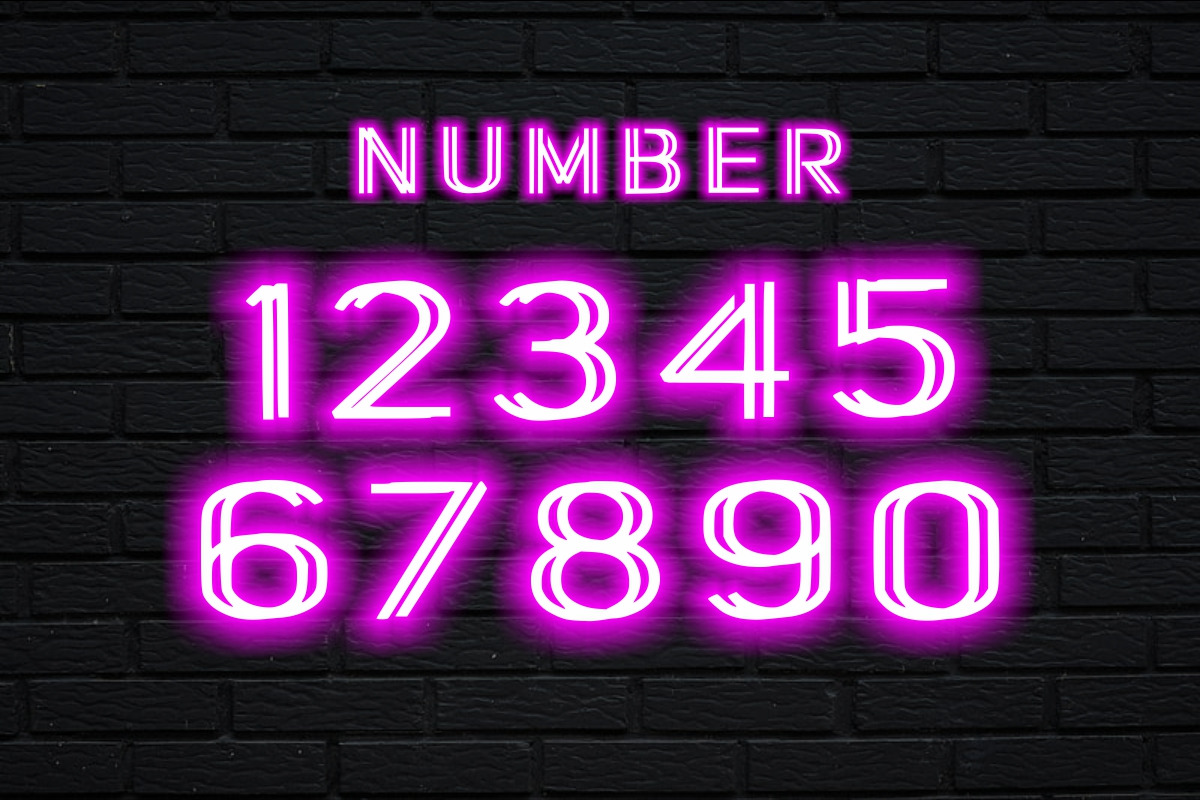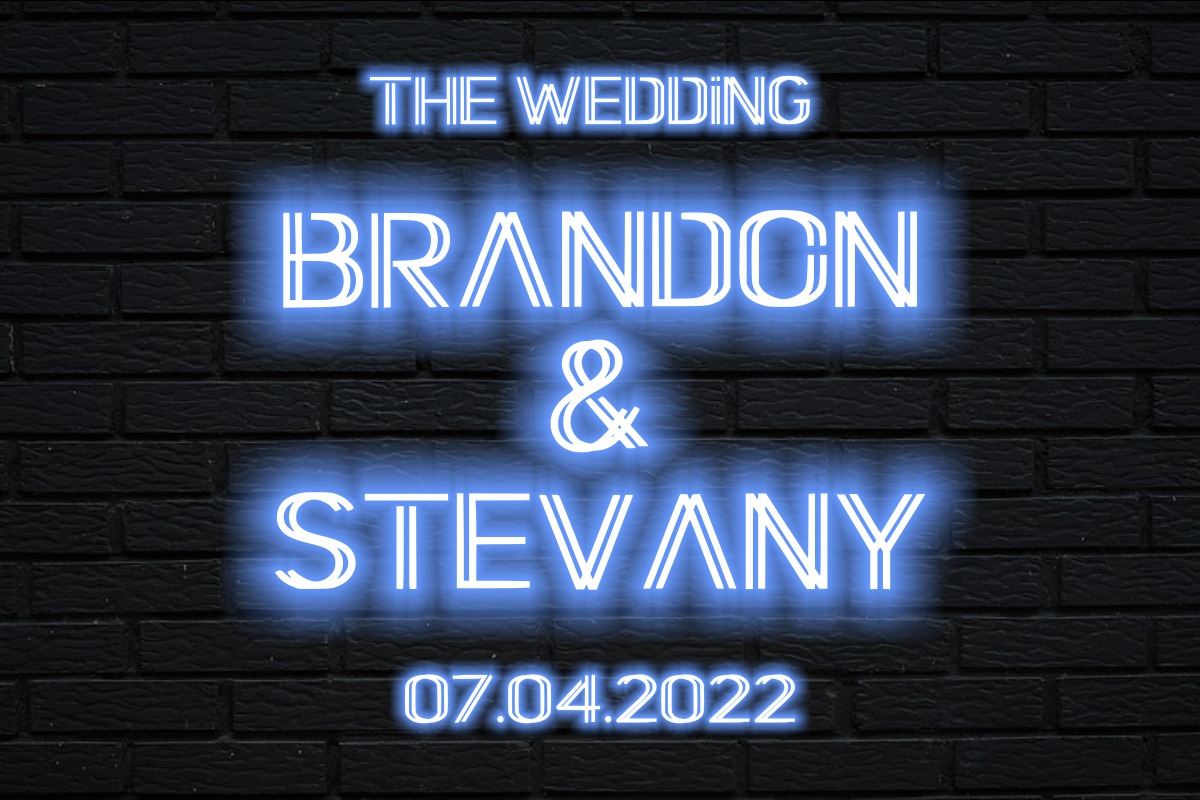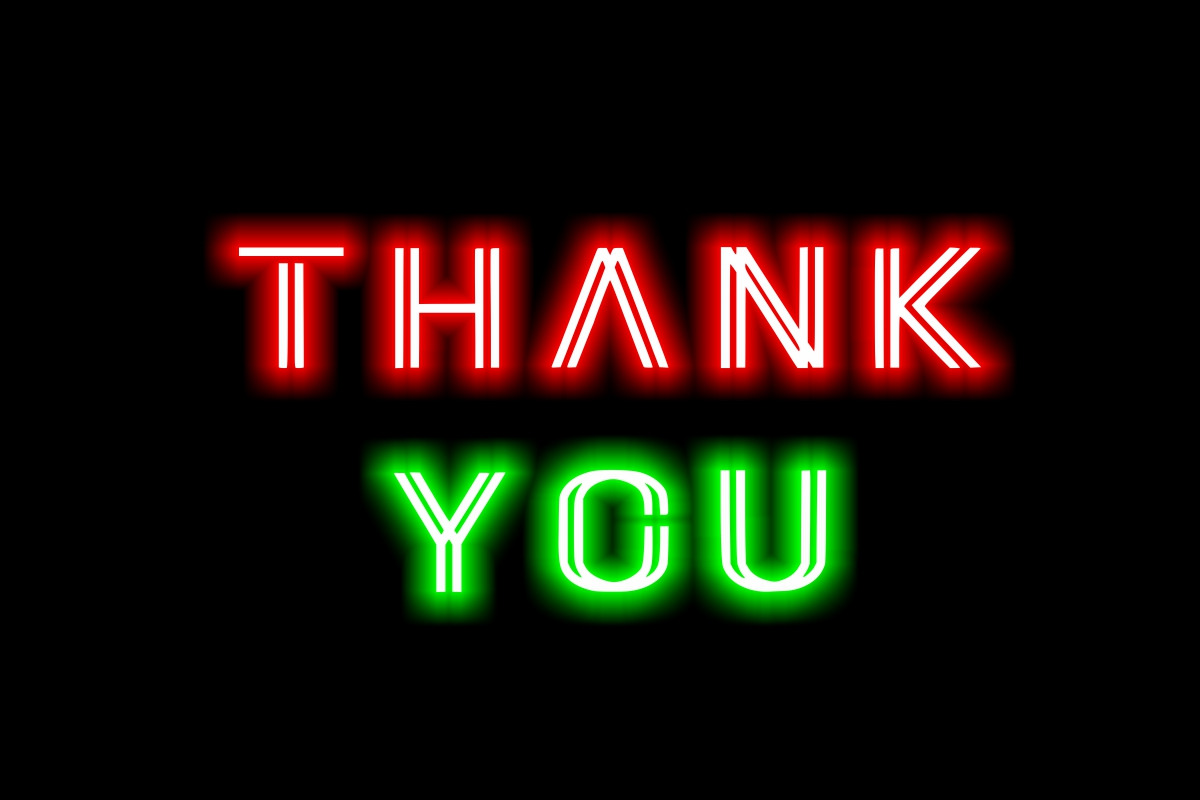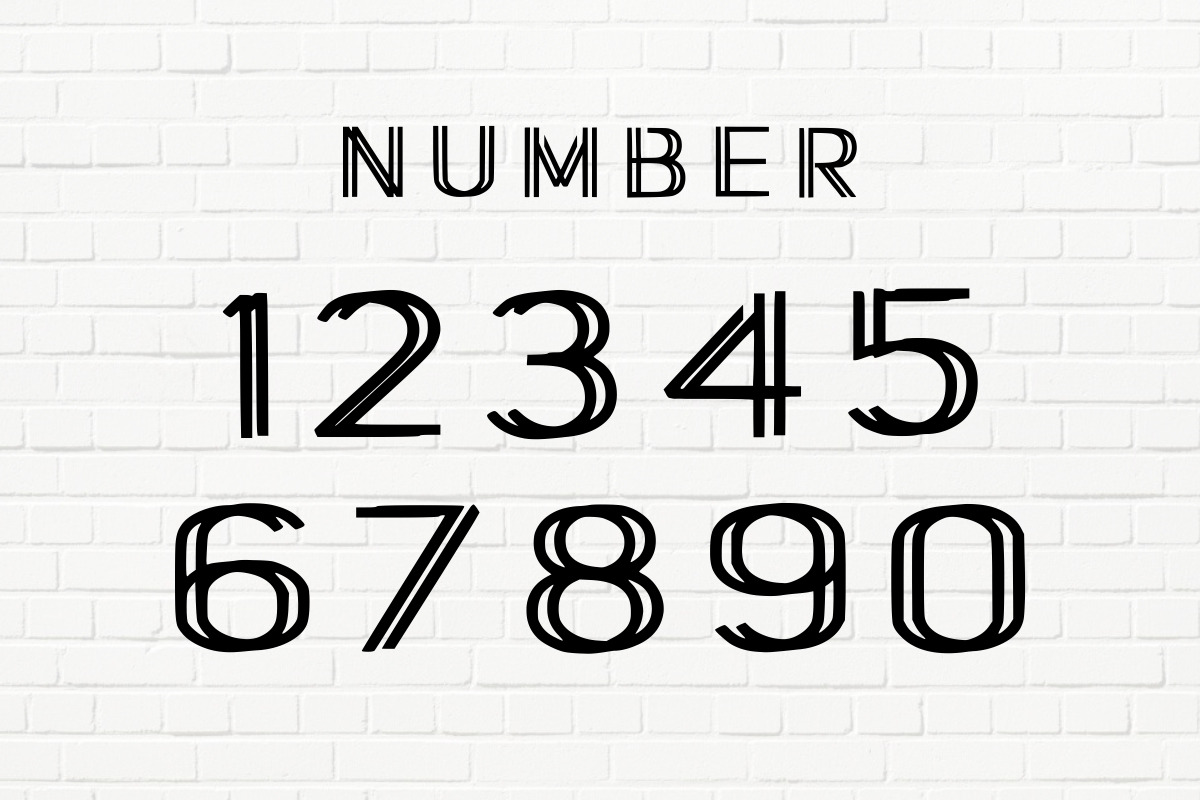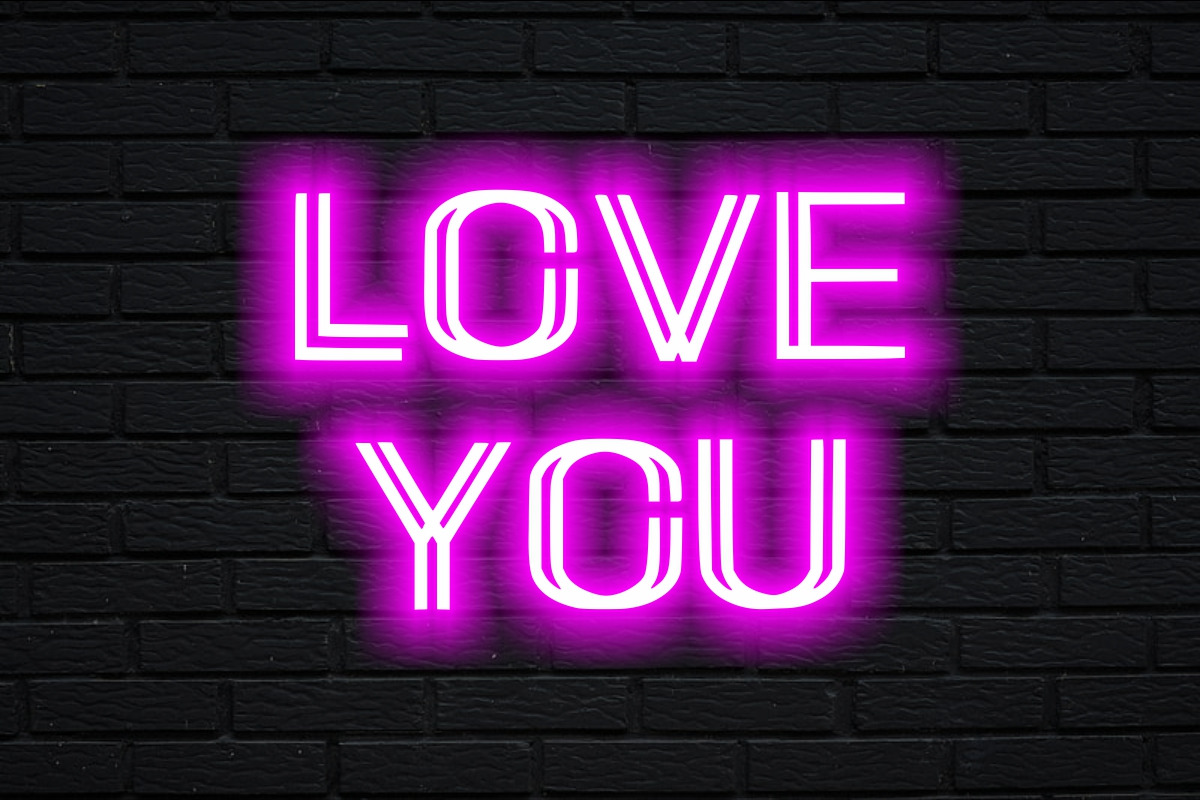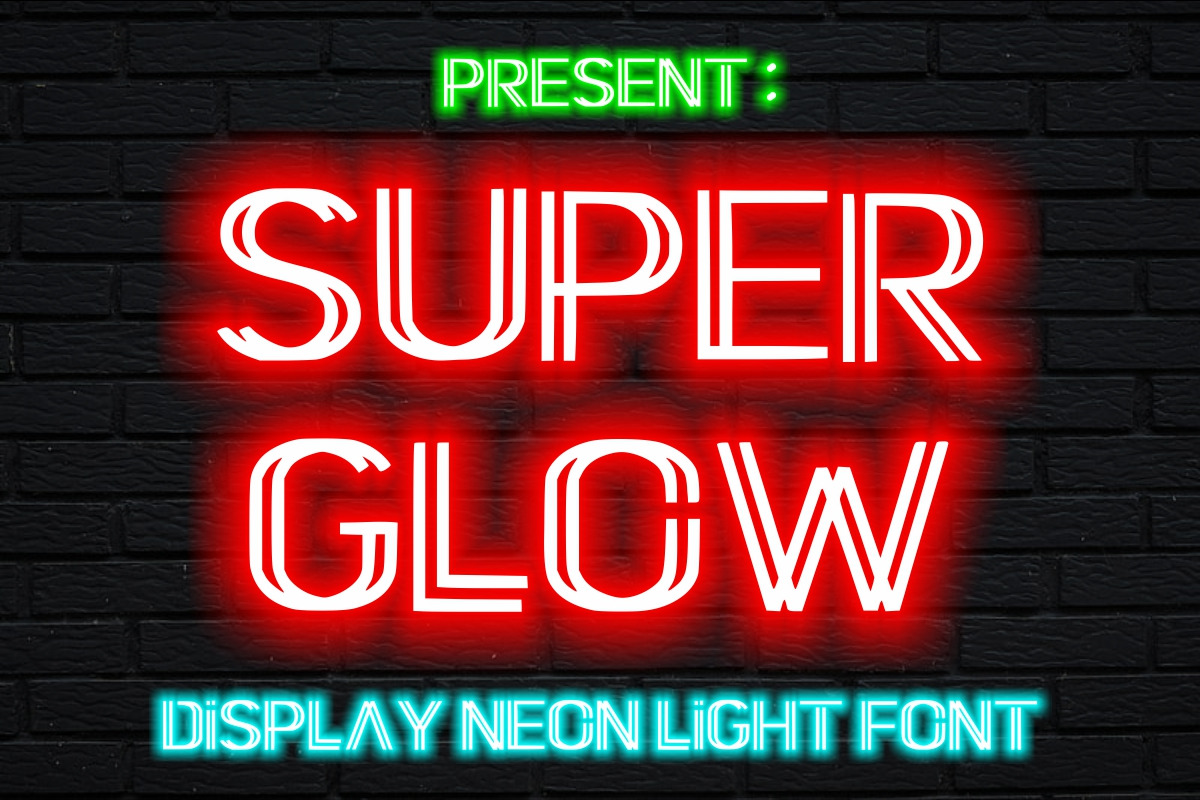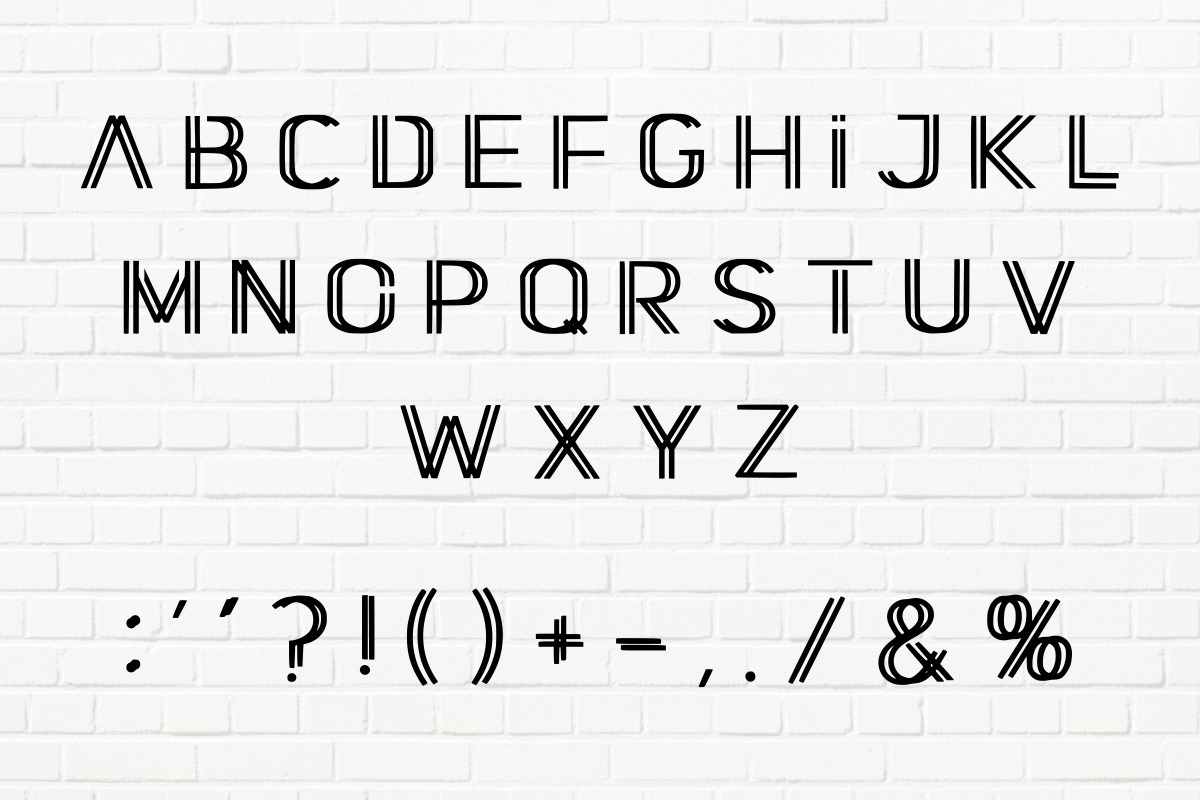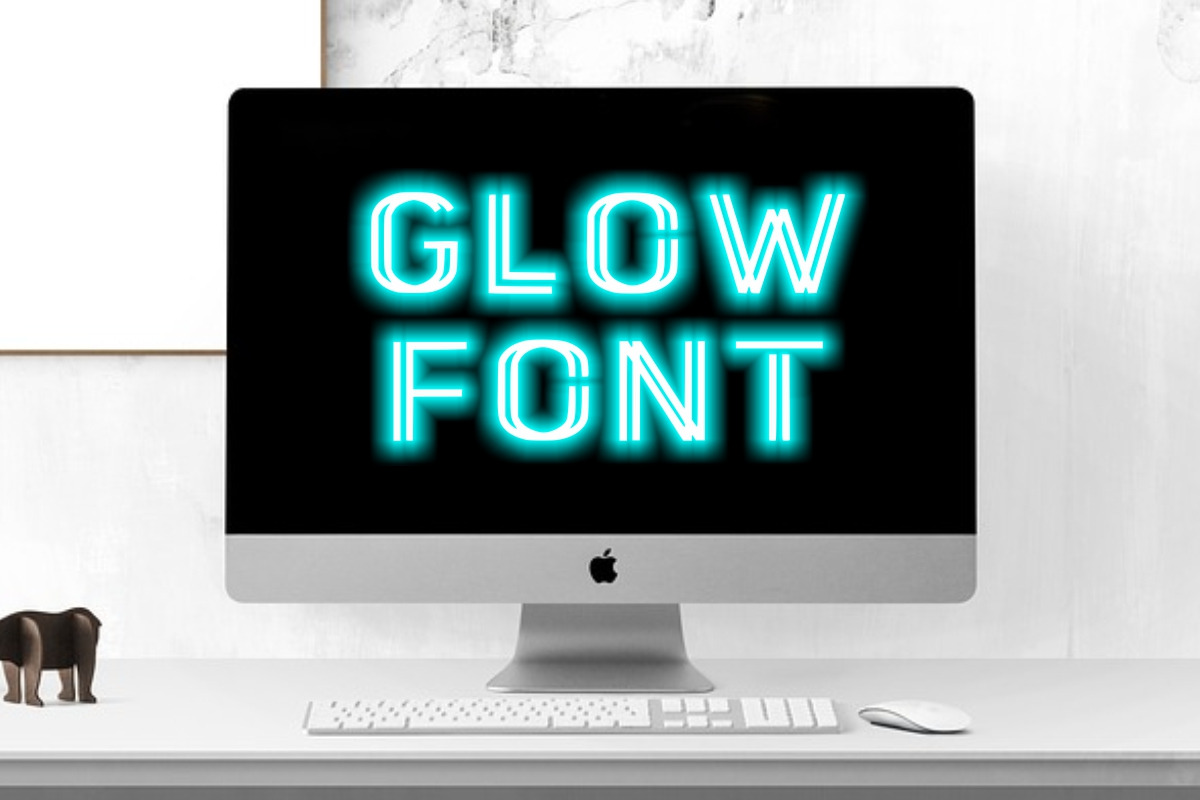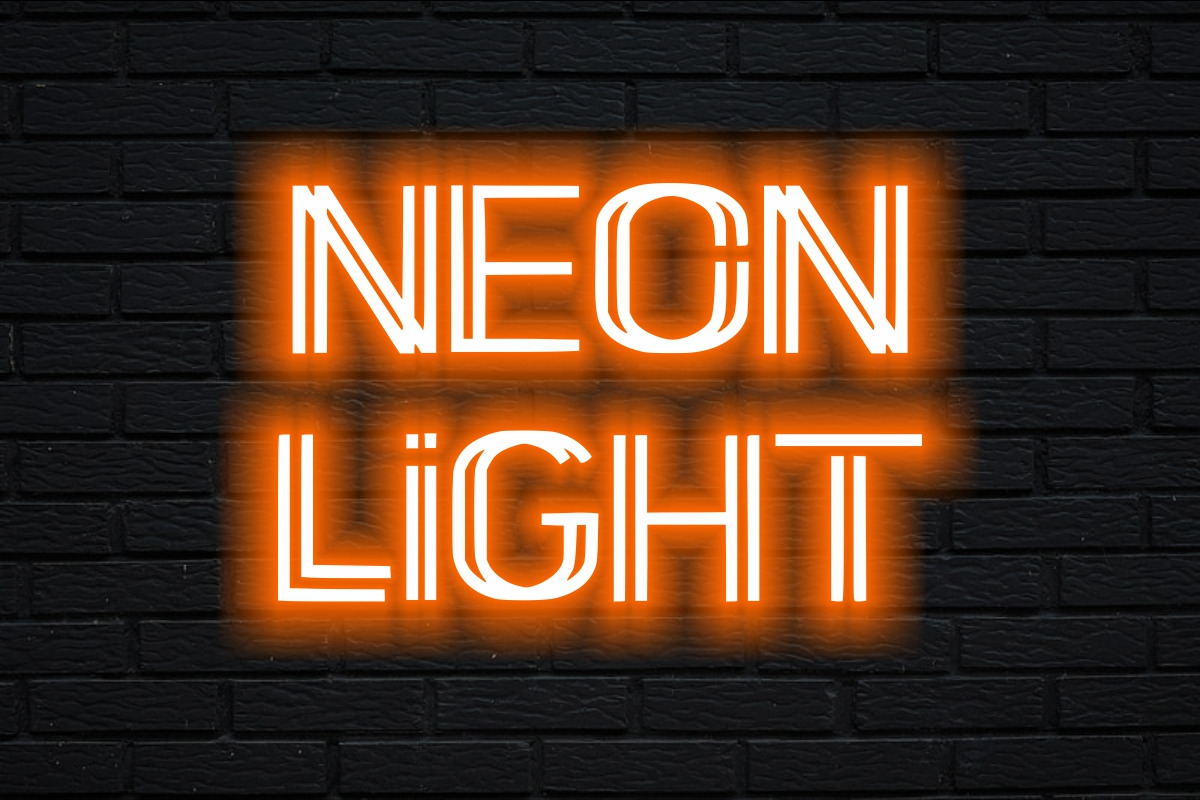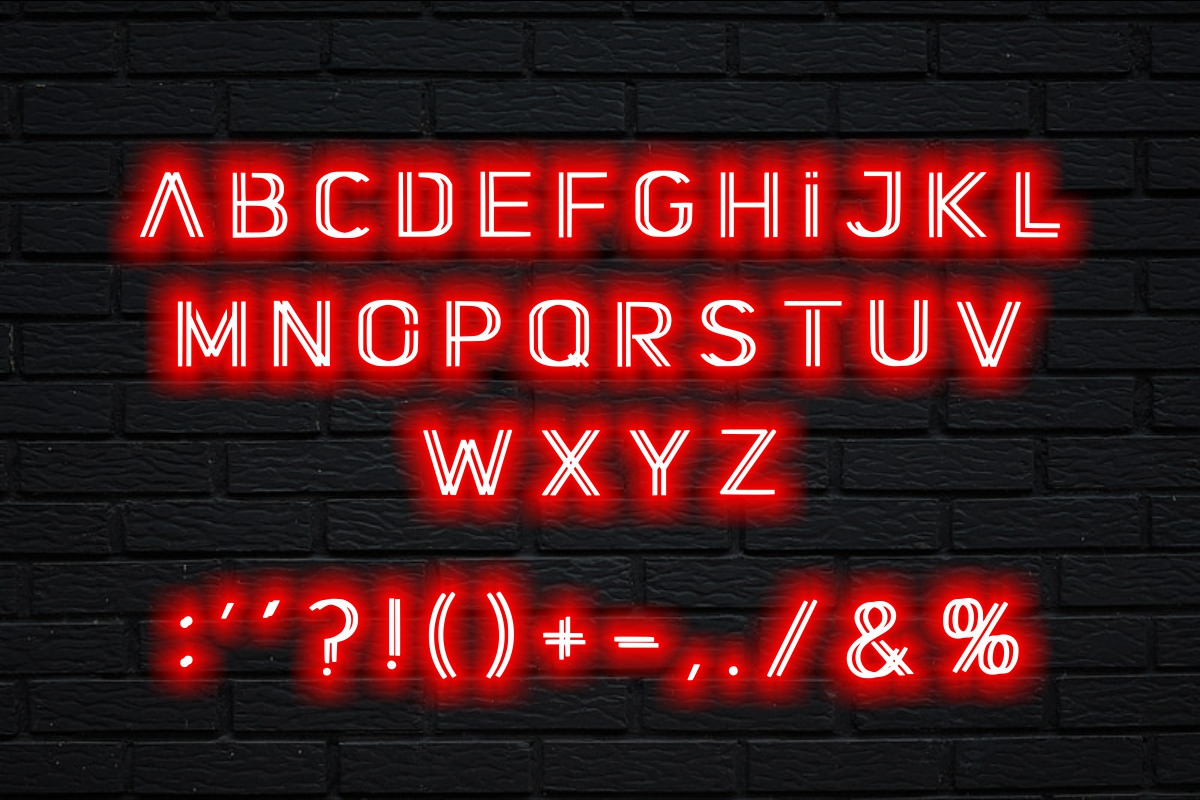
SUPER GLOW NEON LIGHT FONT
Super Glow is a beautiful display font. It will be an incredible asset to your fonts’ library, as it has the potential to elevate any creation. Whether you’re using it for crafts, text effects, digital design, presentations, or greeting cards, this font has the potential to become your favorite go-to font, no matter the occasion!